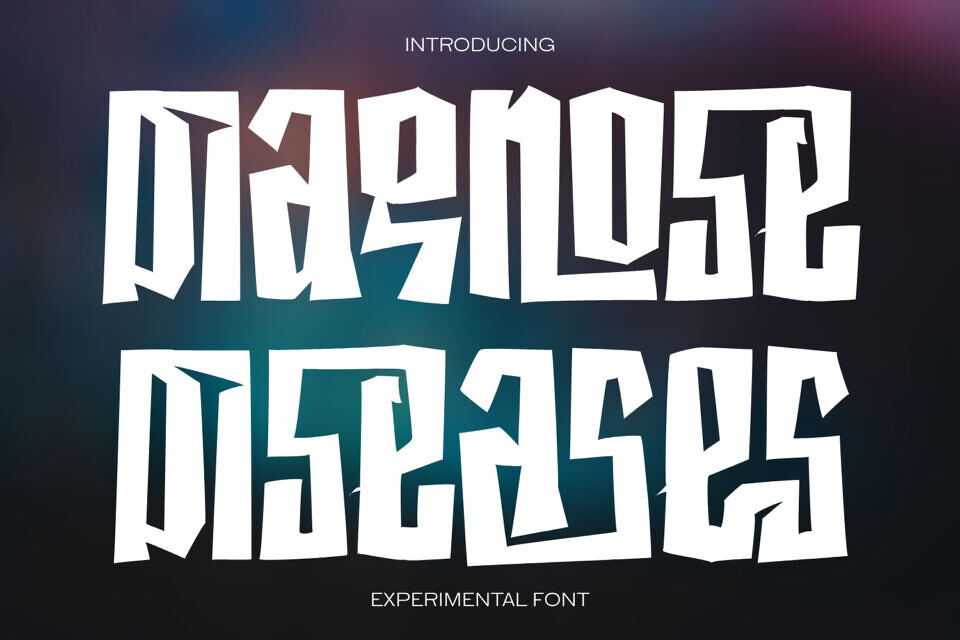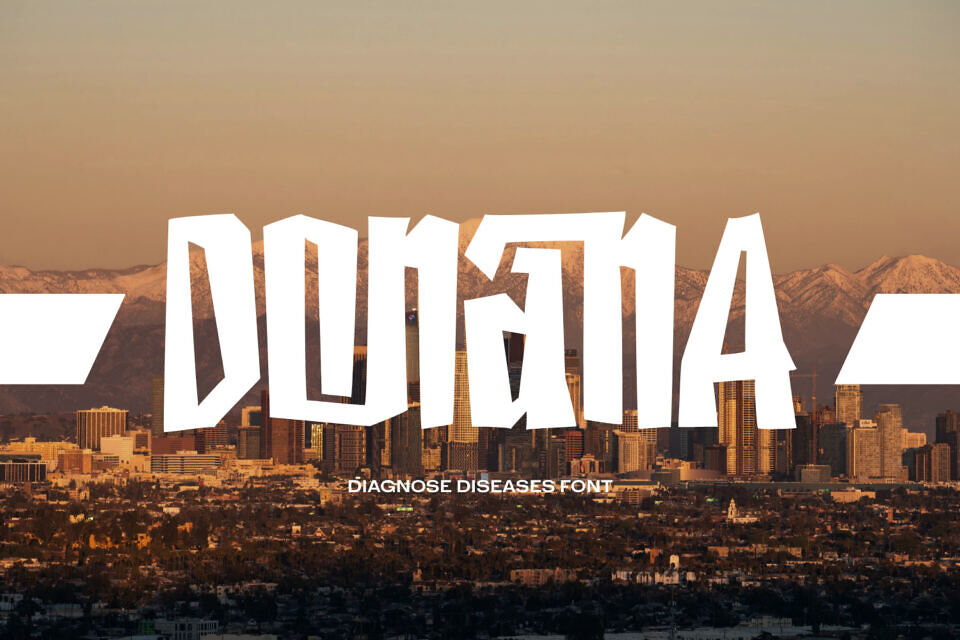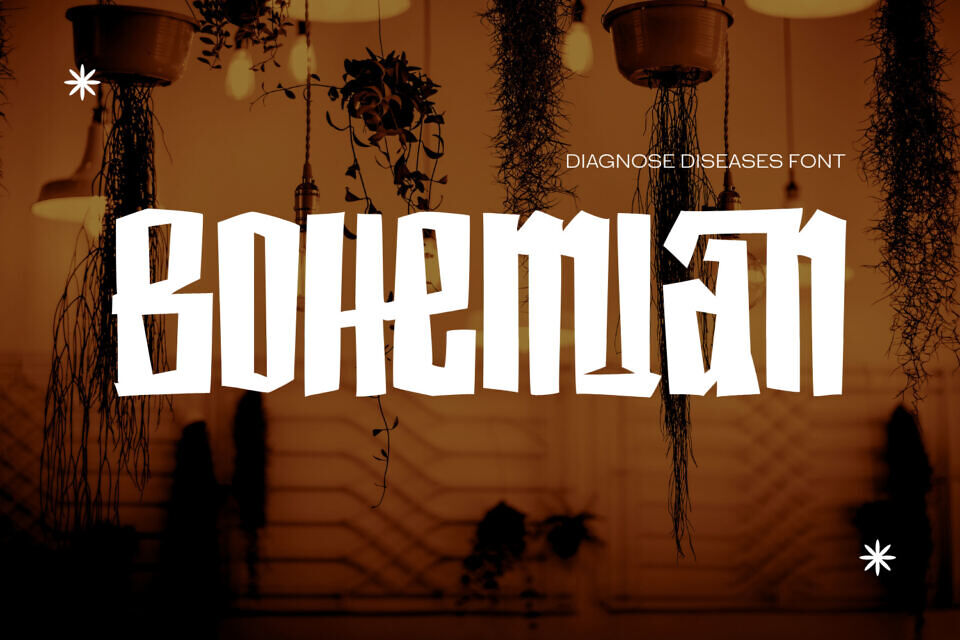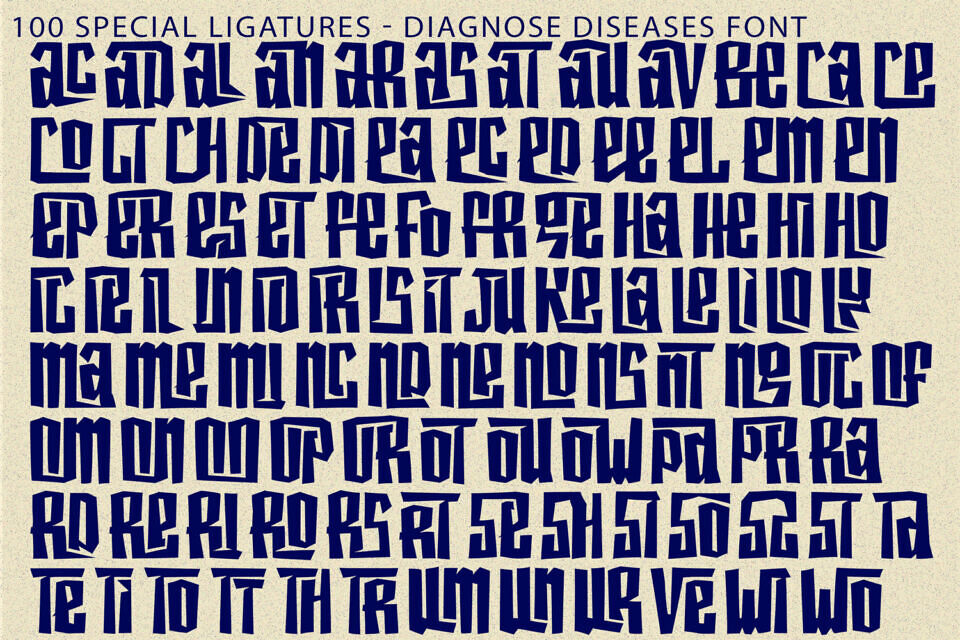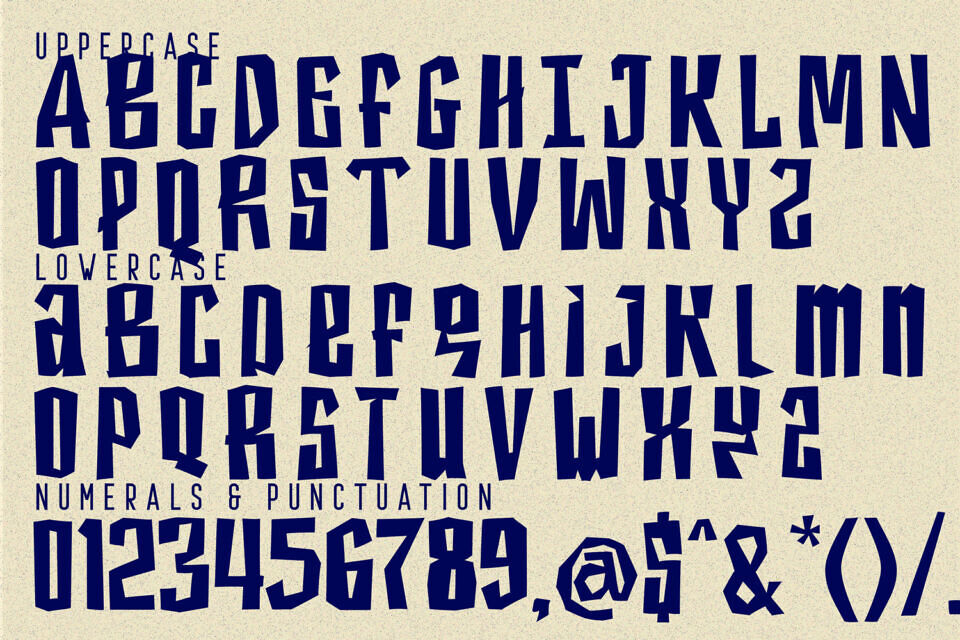
Diagnose Diseases Font
Diagnose Diseases is a bold and rebellious playful display font designed to make a massive impact. Characterized by its unapologetically jagged edges, asymmetric geometric shapes, and heavy, blocky letterforms, this font delivers a raw, aggressive, and highly stylized aesthetic.
Inspired by DIY cut-out art and underground punk vibes, Diagnose Diseases intentionally breaks the rules of traditional typography with its irregular proportions and sharp angles. It is the ultimate choice for designers looking to inject edgy energy into streetwear branding, grunge-style music posters, striking album covers, or any project that demands to stand out and grab instant attention.